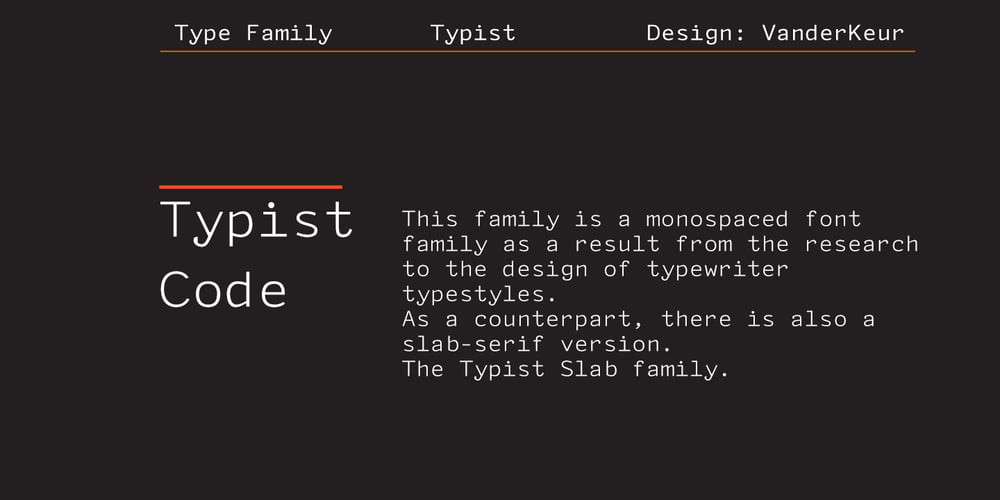
Typist Code Mono
Typist Code Mono font
Typist Code Mono Font Family was designed by Nicolien van der Keur and published by VanderKeur. Typist Code Mono contains 12 styles and family package options. The typeface Typist originated during an extensive research on the origin and development of typewriter typestyles. The first commercially manufactured typewriter came on the market in 1878 by Remington. The typestyles on these machines were only possible in capitals, the combination of capitals and lowercase came available around the end of the nineteenth century. Apart from a few exceptions, most typestyles had a fixed letter width and a more or less unambiguous design that resembled a thread-like structure. A lot of this mechanical structure was due to the method the typestyles were produced. Looking at type-specimens for print before the first typewriters were good enough to came on the market we can see that in 1853 and in 1882 Bruce’s Type Foundry already had printing type that had a structure of the typewriter typestyles. Of course printing types were proportional designed as typewriter typestyles had a fixed width. So it is possible that except from the method of production for typewriter typestyles, the design of printing types were copied. In the design of the Typist, the purpose was – next to the monospace feature – to include some of the features of the early typewriter typestyles. Features such as the ball terminals and the remarkable design of the letter Q. This new typeface laks the mechanical and cold look of the early typewriter typestyles. The Typist comes in six weights with matching italics in two versions. One that resembled the early typewriter typestyles (Typist Slab) and a version designed with coding programmers in mind (Typist Code).